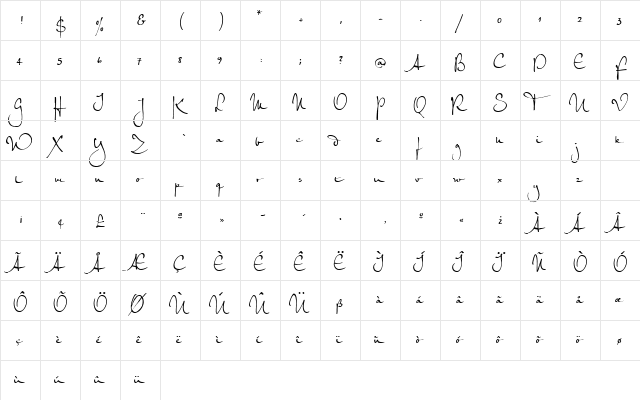
PetrasScriptEF Regular
Design Context for PetrasScriptEF Typeface
PetrasScriptEF flows with the natural rhythm of handwritten lettering, making it ideal for designs that call for warmth and personal expression.
Font Pairing: Combine PetrasScriptEF with a simple geometric sans for maximum contrast — the tension between flowing curves and clean structure is a classic typographic pairing.
Pro Tip: Use PetrasScriptEF for short runs of text — names, titles, or taglines. Extended body copy in script faces tires the eye quickly.